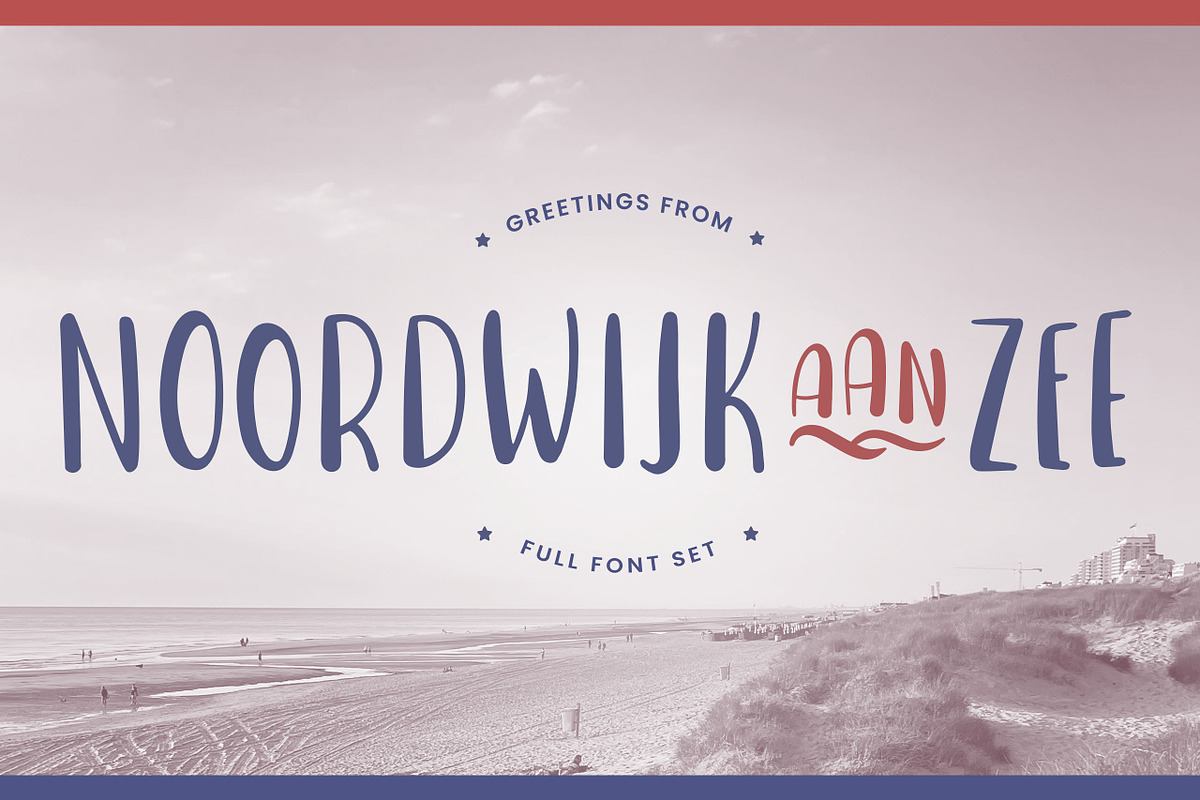
Embrace coastal elegance with Noordwijk aan Zee Font Free Download — a graceful and nostalgic typeface inspired by the charm of seaside towns. With its soft lines and delicate flow, this font is perfect for wedding invitations, travel journals, boutique branding, lifestyle blogs, and projects that need a calm and romantic aesthetic.
Noordwijk aan Zee brings the gentle breeze of the beach into your designs, offering a hand-crafted, slightly vintage feel. It includes uppercase and lowercase characters, numerals, punctuation, and multilingual support — making it versatile enough for both digital and print designs.